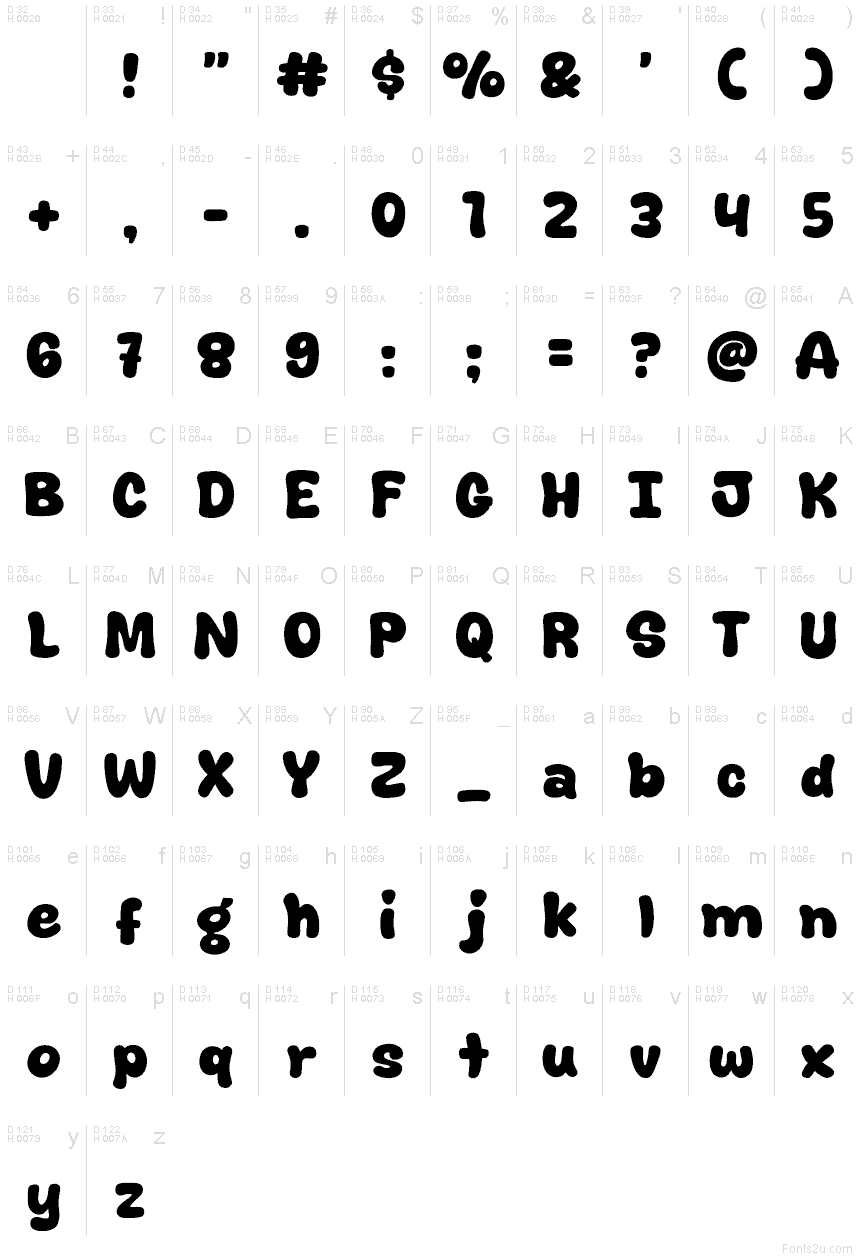
Realbun
Reablun font is a free display font by Khurasan that combines rounded shapes with whimsical features and friendly accents. The bold typeface holds contemporary characteristics with marked casual strokes and approaches the viewer with a calm attitude enabling it to consistently entertain.
Comics, movie posters, headlines, children’s cartoons, magazines covers/designs, video games designs (especially for kids), packaging design and labels related to toys/games are great use cases where this typeface would fit.